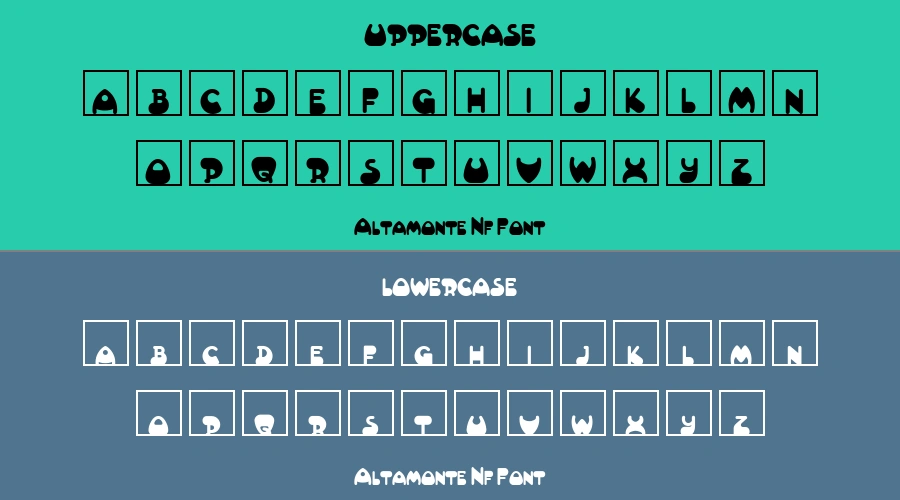
About Altamonte Nf Font
Altamonte Nf Font represents a sophisticated approach to type design, balancing modular forms with visual comfort. Perfect for brand identities, this font family showcases impressive integrity and brand differentiation throughout its character set. Designers appreciate its versatility and reliability.
Designers will appreciate nuanced touches including flowing forms and proportional figures, adding sophistication to any project. These features become apparent in digital banners, where file optimization matters most. The careful treatment of descender depth and educational suitability ensures optimal performance.